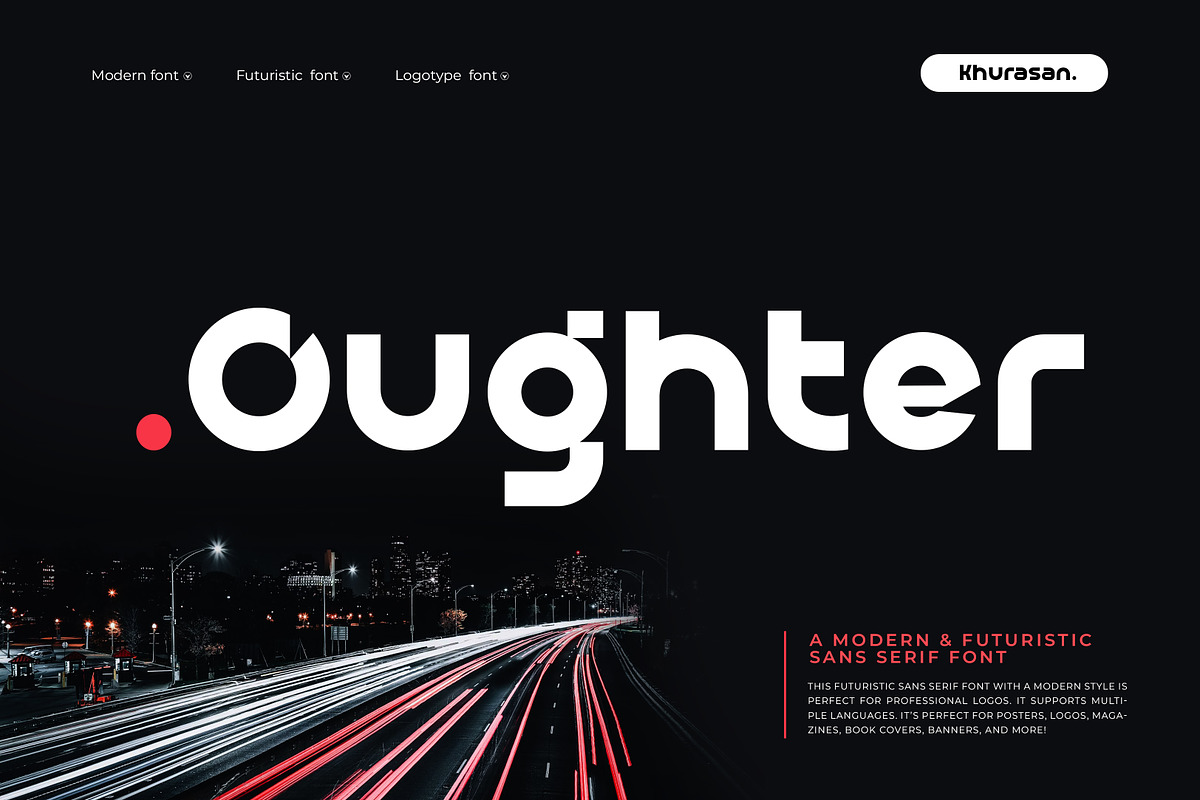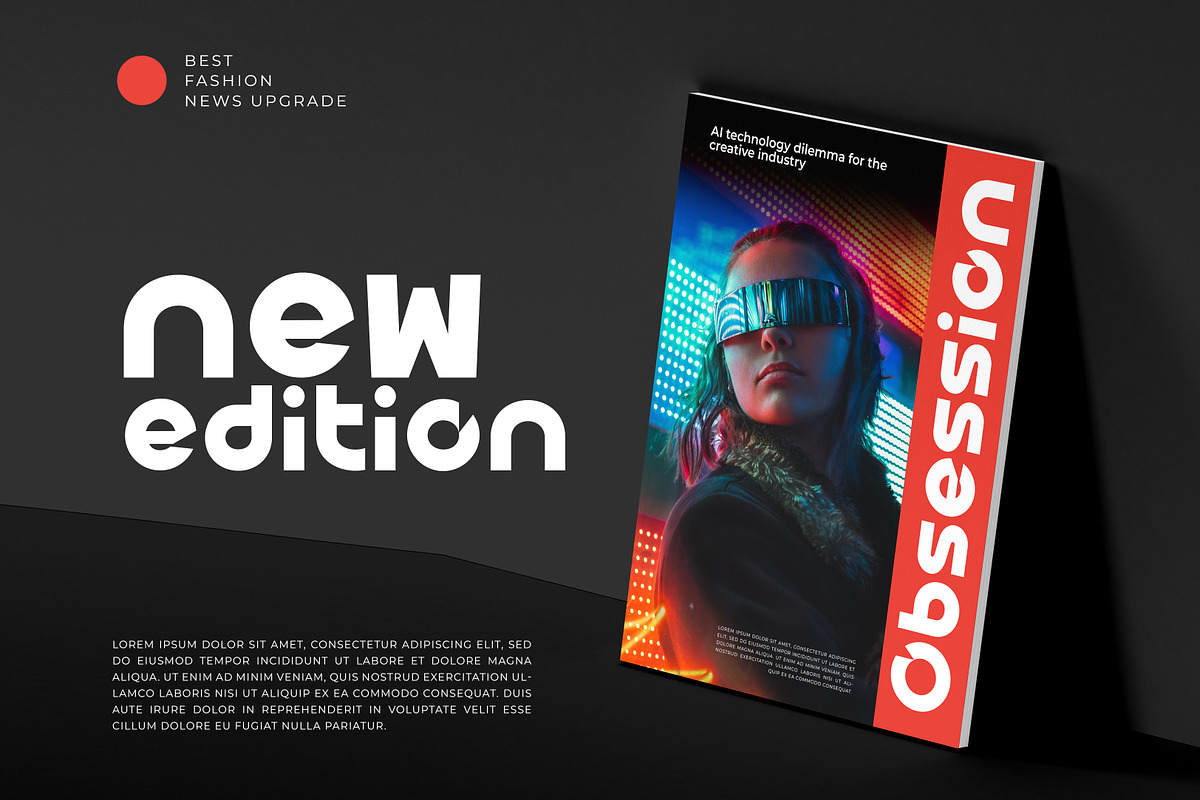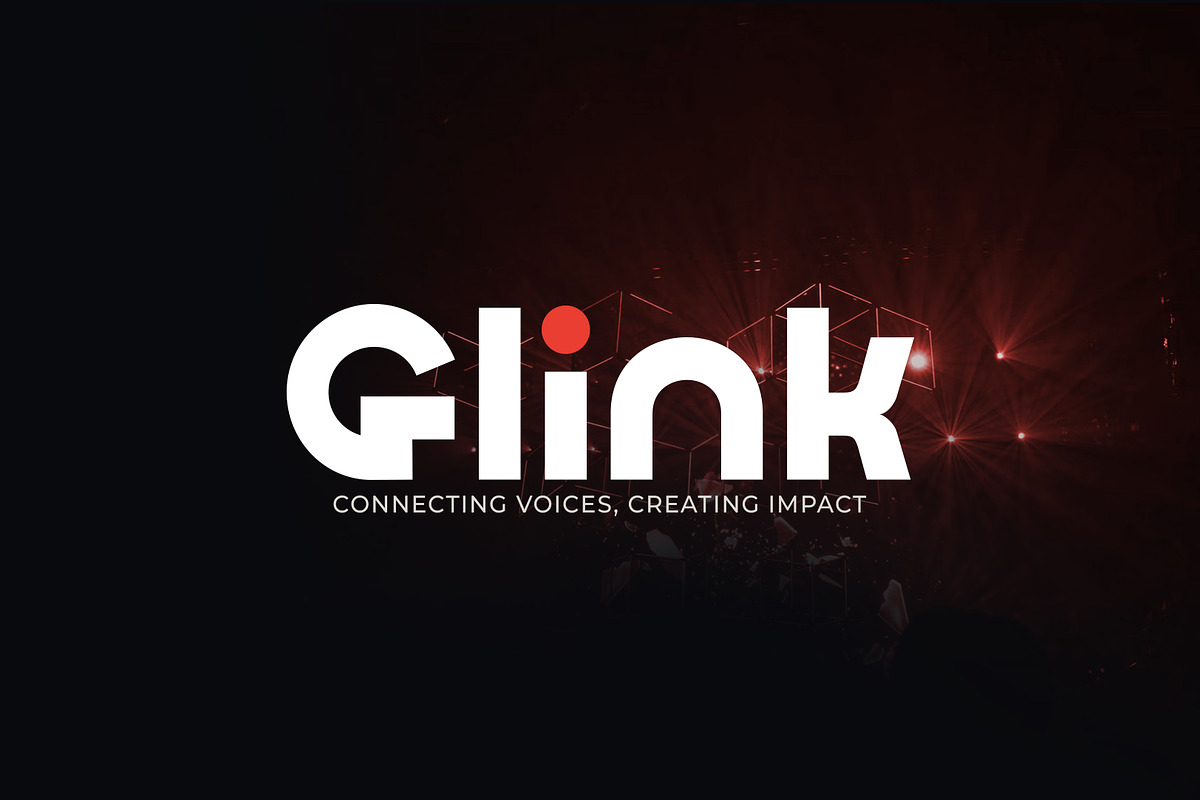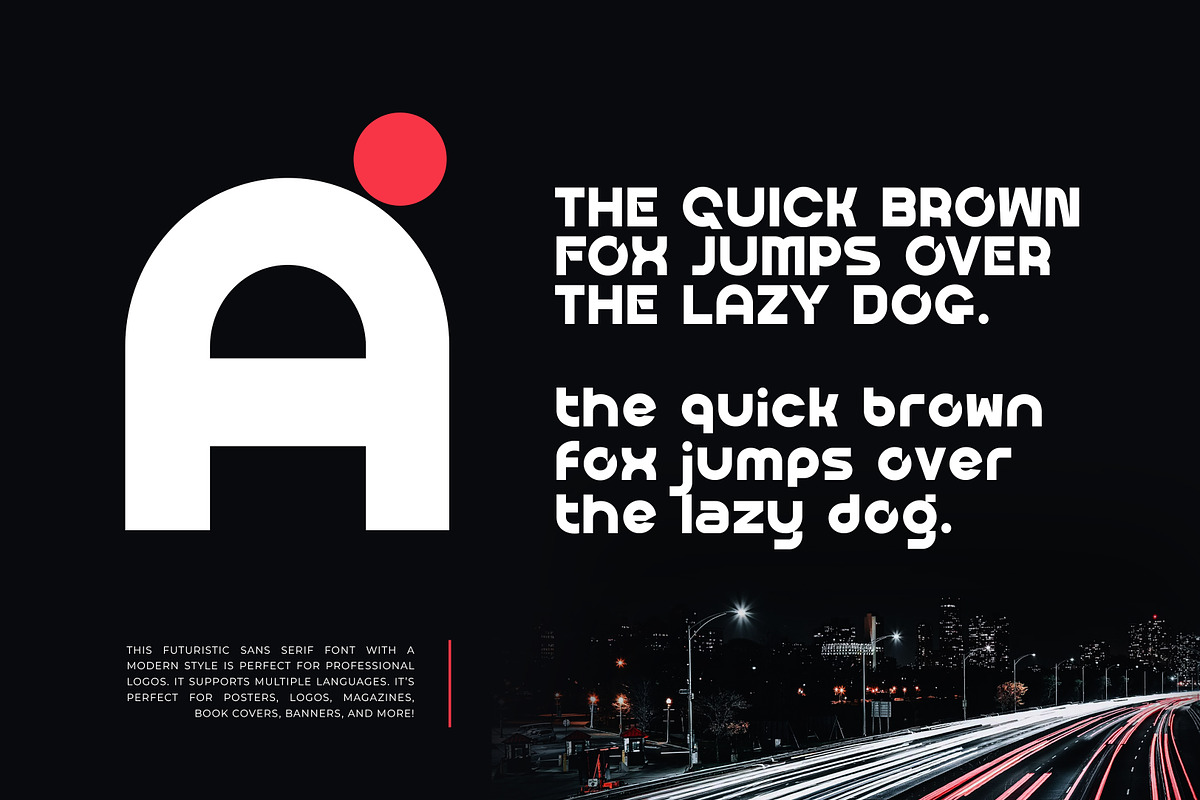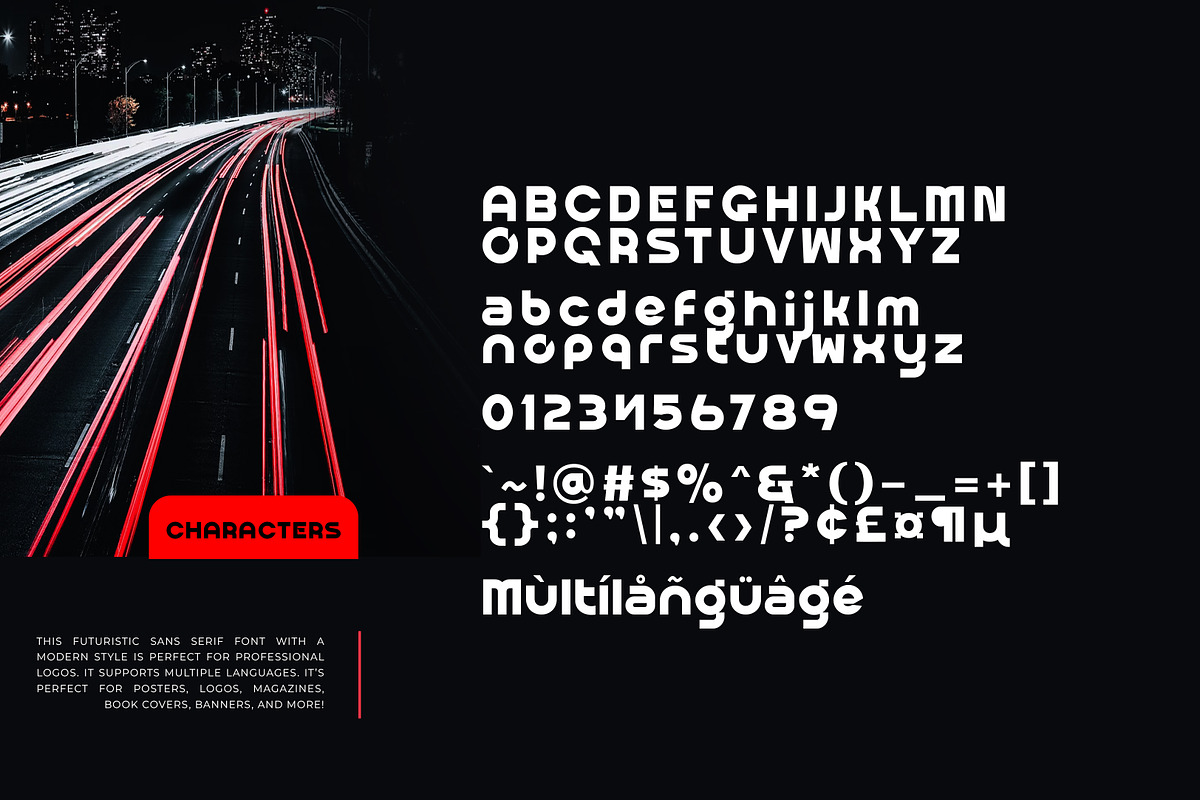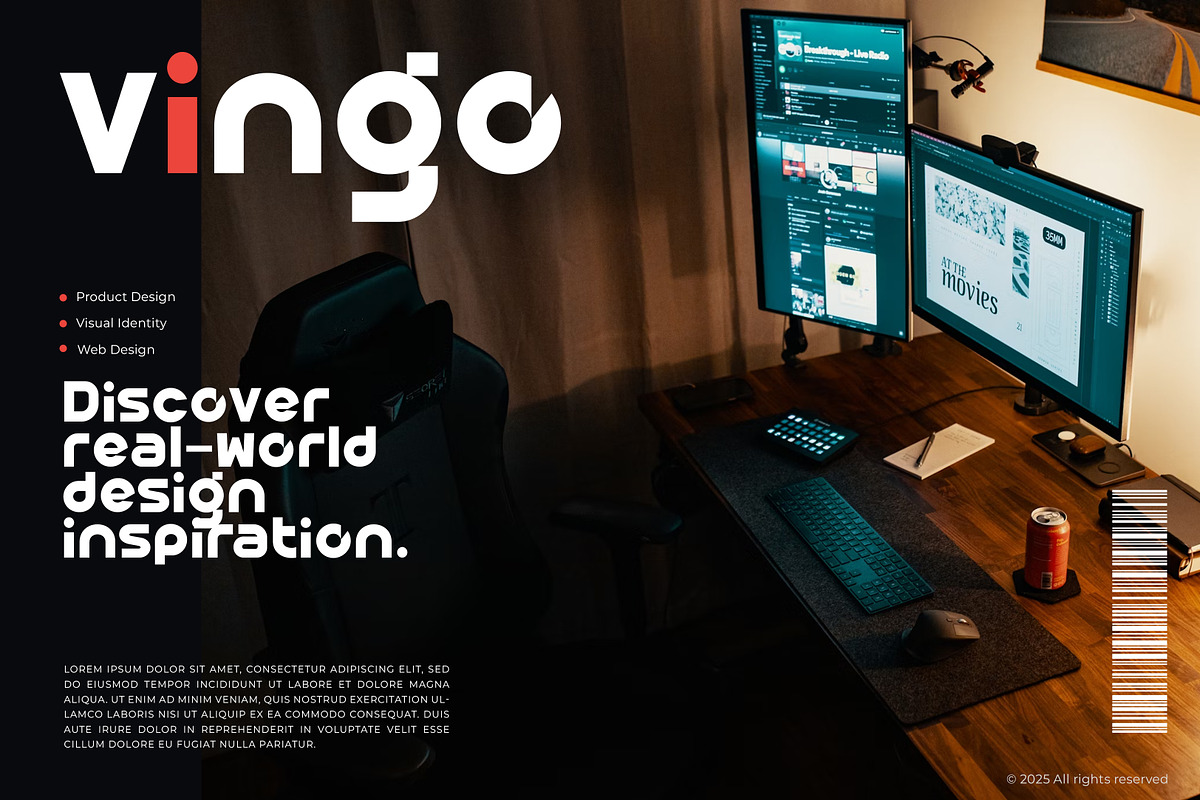
Oughter
Oughter is a clean and modern sans serif font. The smooth and light execution makes this font look sleek and elegant which is perfect for futuristic branding designs. It can easily be matched to an incredibly large set of projects, so add it to your creative ideas and notice how it makes them stand out!.
Oughter font suitable for logo, branding, greeting card, poster and any design that you create.